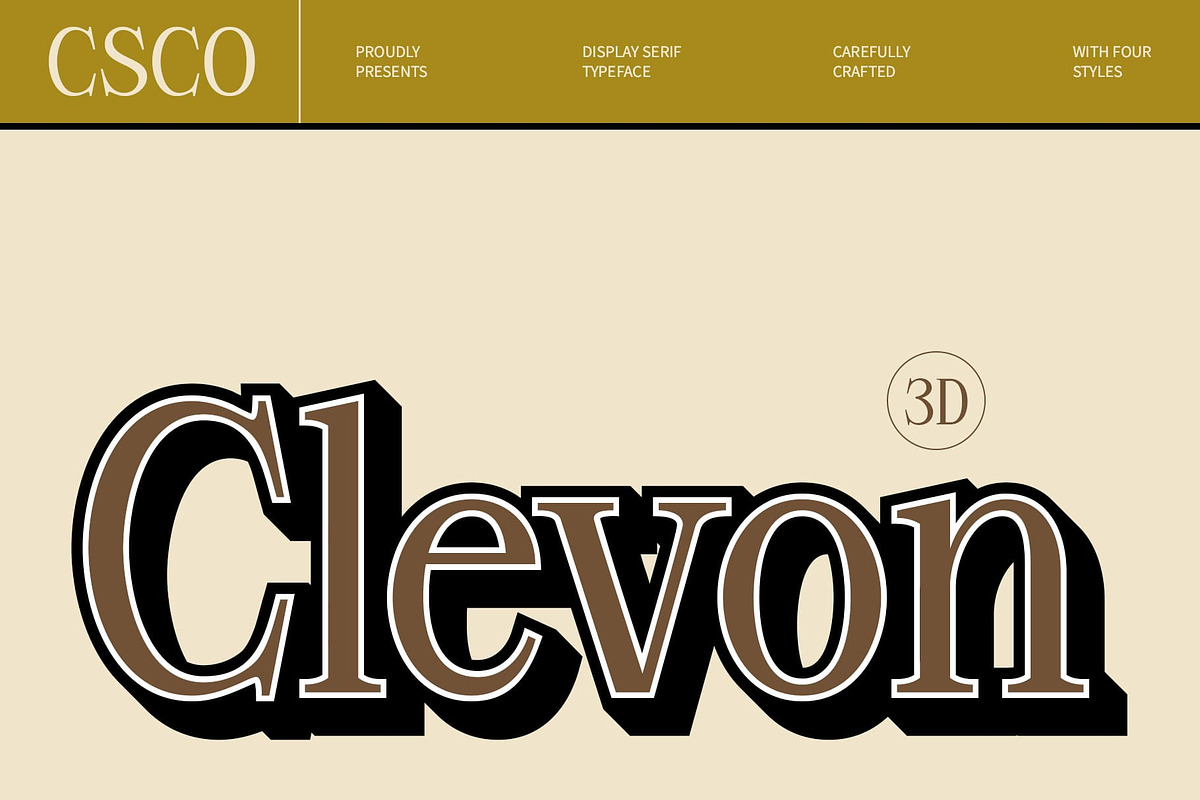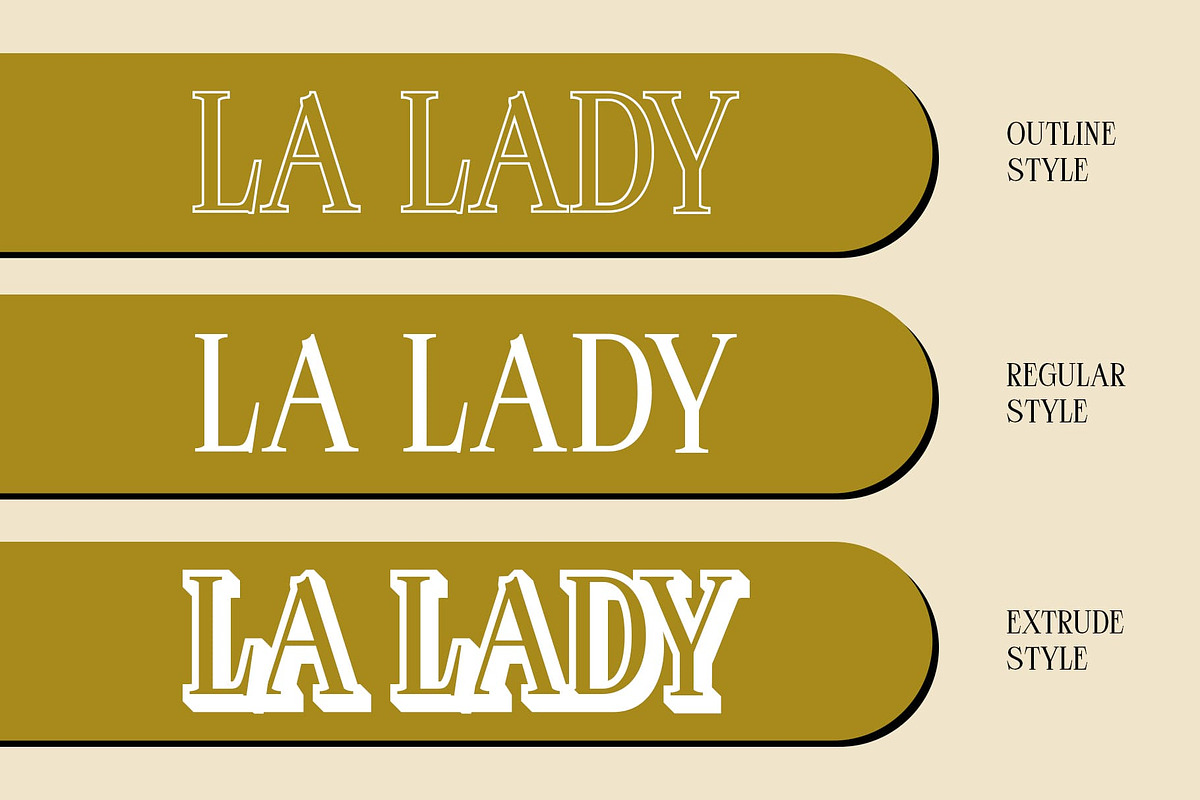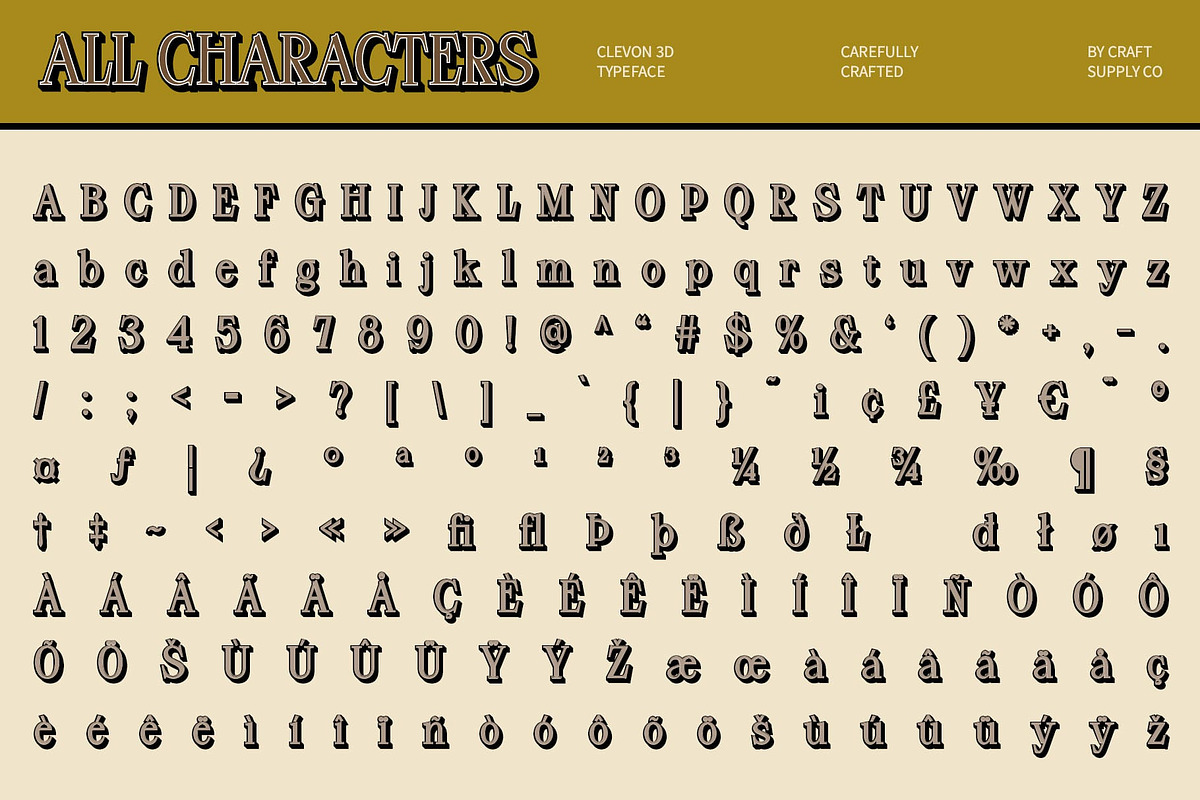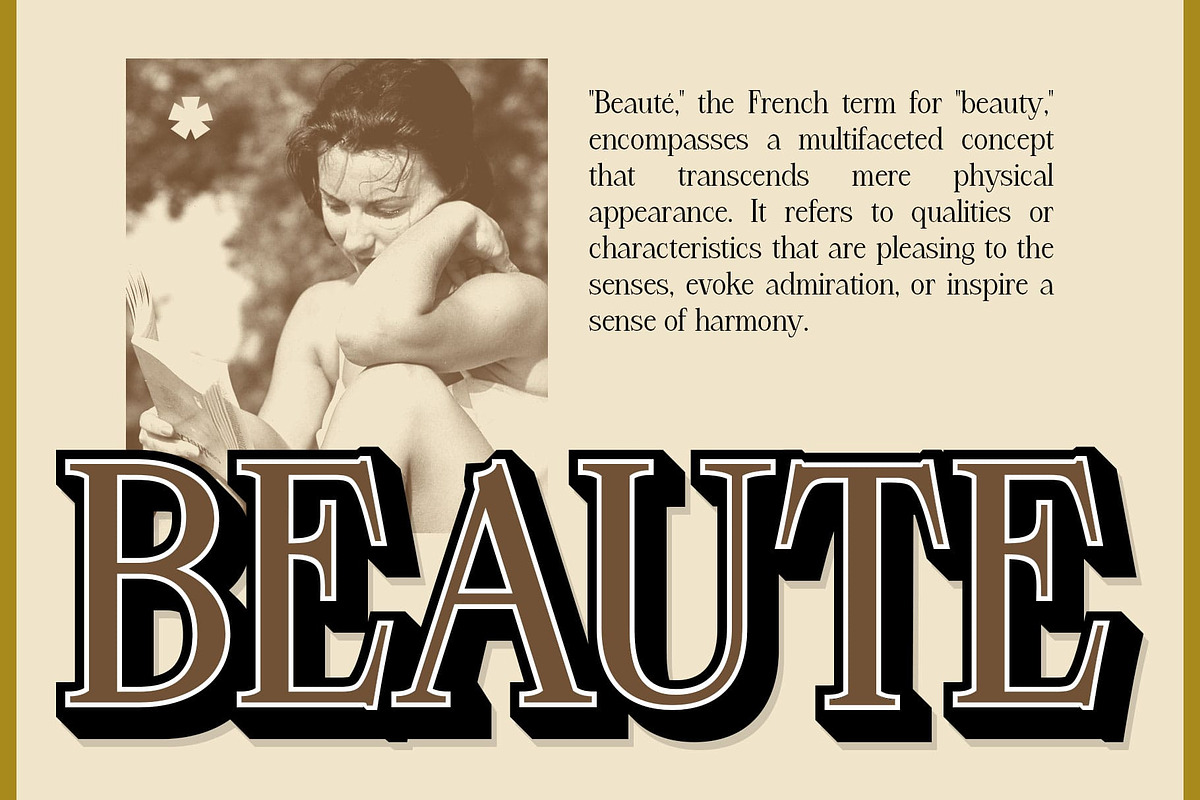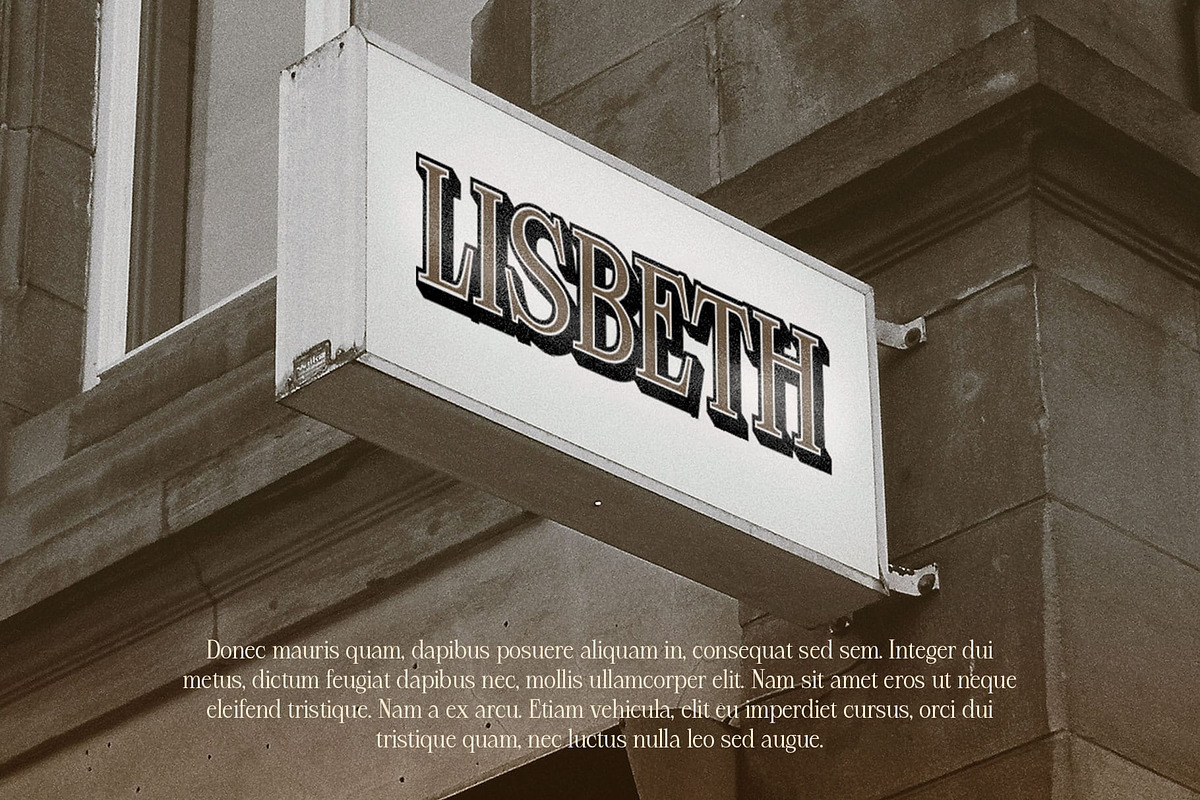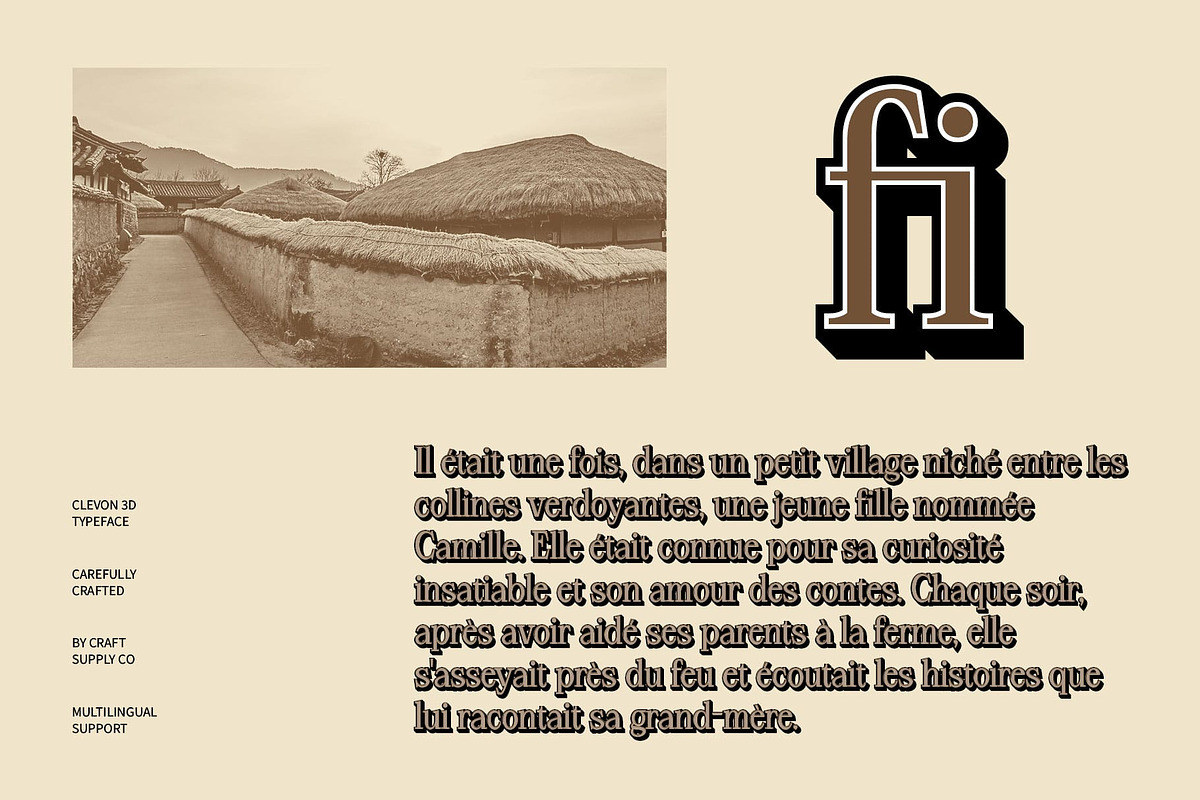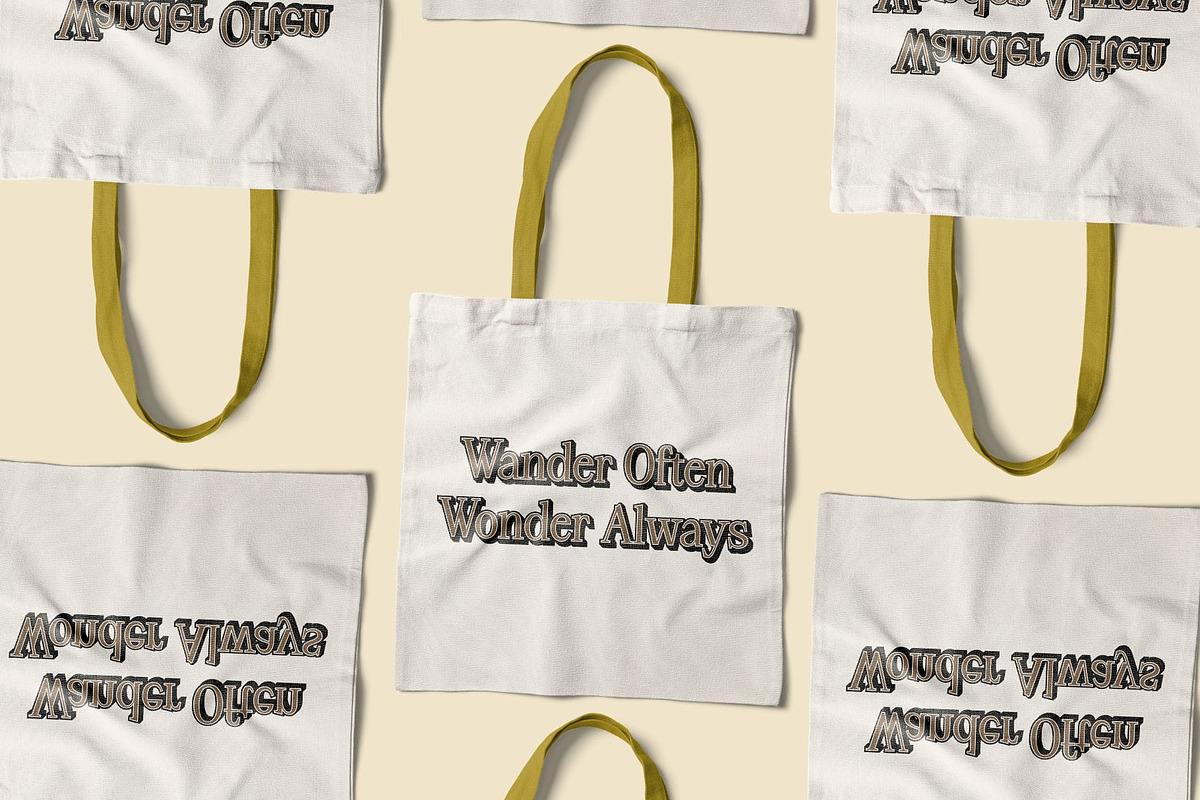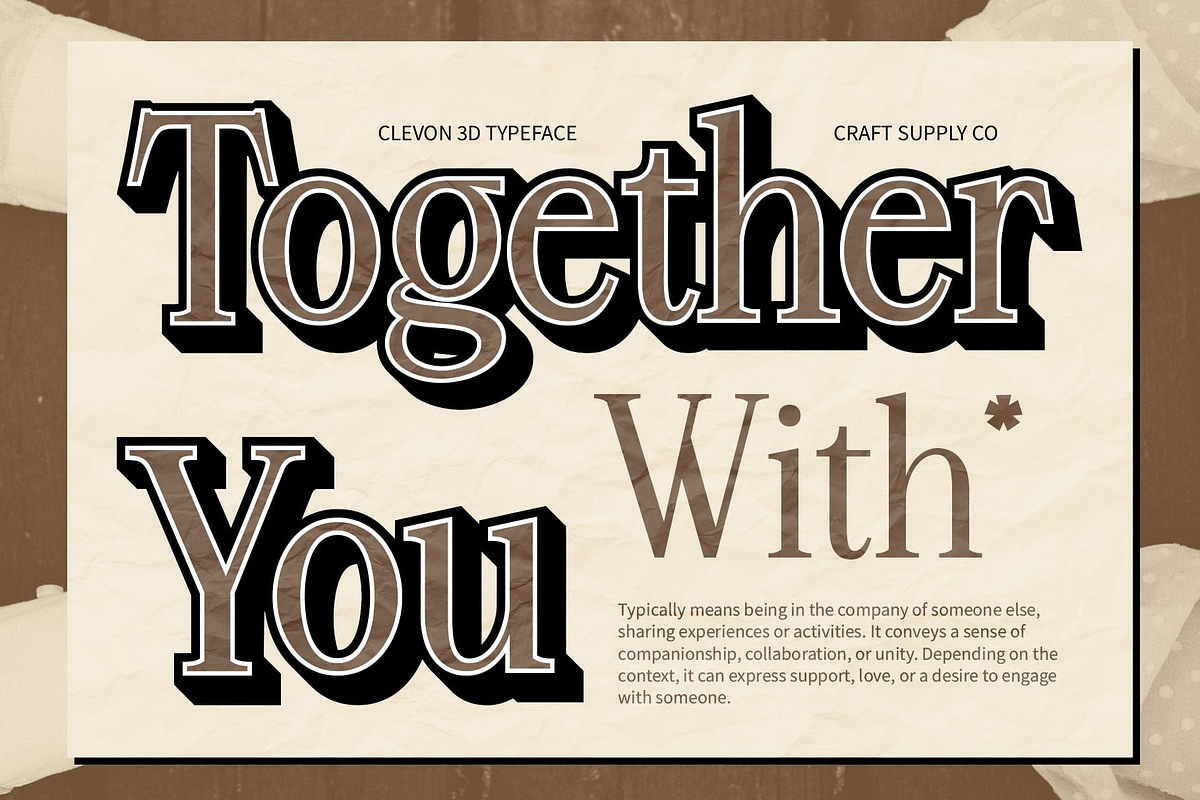
Clevon 3D
Clevon 3D Font: Where Timeless Elegance Meets Modern Design
Sophisticated Modern Serif Font Clevon 3D is a striking modern serif font that artfully blends classic elegance with contemporary flair. Its hallmark characteristics, including clean lines and balanced proportions, create a professional and luxurious impression, making it an excellent choice for designs that demand sophistication and style.
Dynamic 3D Effect for Enhanced Visual Impact The font’s elegant 3D effect introduces a captivating dimension and depth to each letter, transforming traditional serif elements into a visually striking typography choice. This added layer of sophistication not only enhances the overall aesthetic but also ensures that your text captures attention and stands out in any design context.
Perfect for Formal and High-End Applications Clevon 3D shines in formal and upscale designs, making it ideal for wedding invitations, corporate branding, and high-end marketing materials. Its refined appearance communicates professionalism and luxury, while the three-dimensional effect adds a modern touch, ensuring your projects convey a sense of prestige and timelessness.
Versatile for Creative Projects with Lasting Impressions This font’s unique combination of classic serif characteristics and modern 3D effects provides versatility for a range of creative applications. Whether you’re designing elegant stationery, impactful branding, or sophisticated promotional materials, Clevon 3D elevates your work, leaving a lasting impression that resonates with your audience.
- Clevon Regular
- Clevon Outline
- Clevon Extrude Right
- Clevon Extrude Left